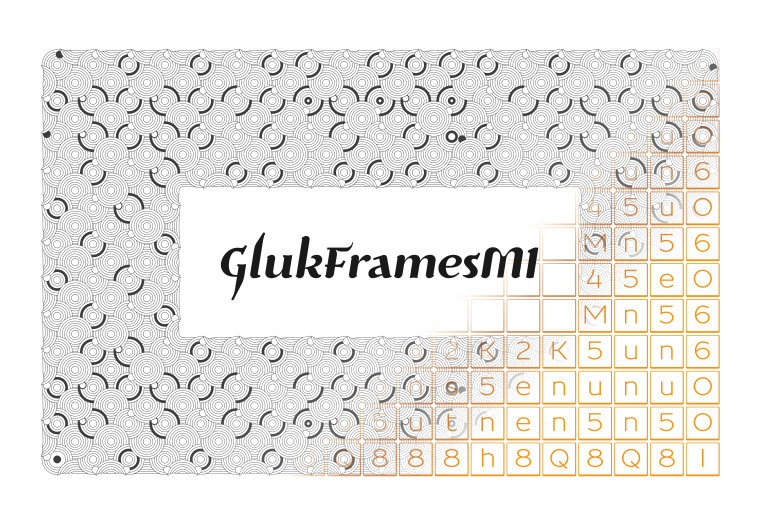
Font GlukFramesM1 is a set of Elements for creating Frames and Patterns in .otf Format. Full set of Elements, Examples of use and Tips You find in pdf. Attention: Experimental Set, correct work depend of Software Settings like: Linespacing, Text Alignment etc.